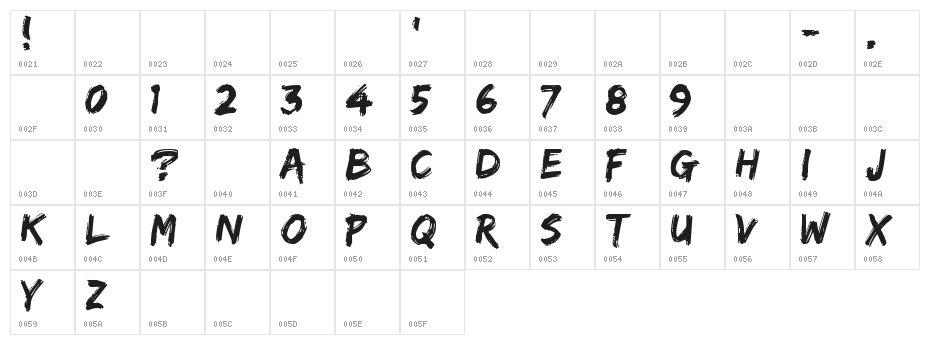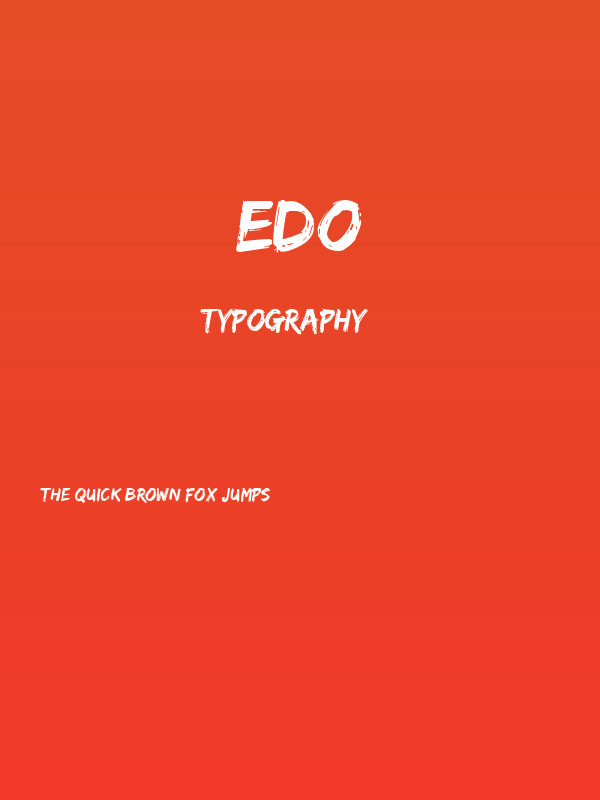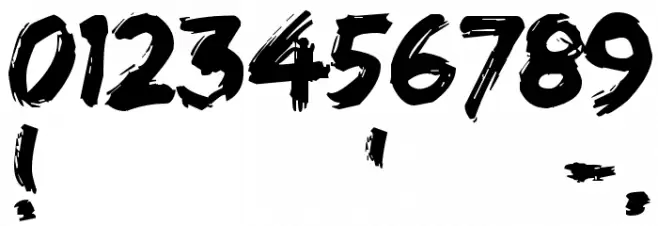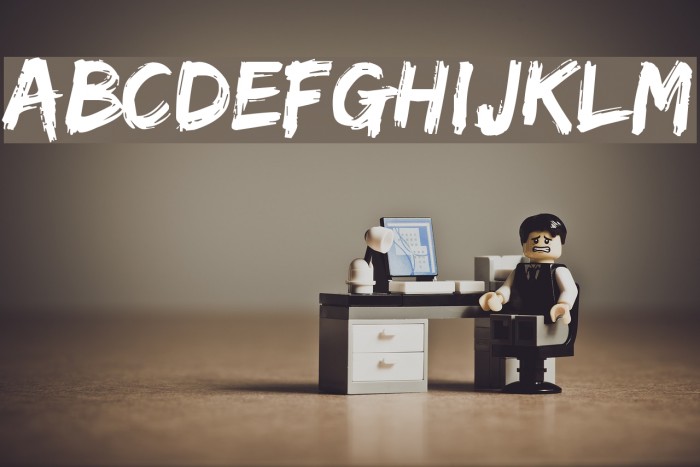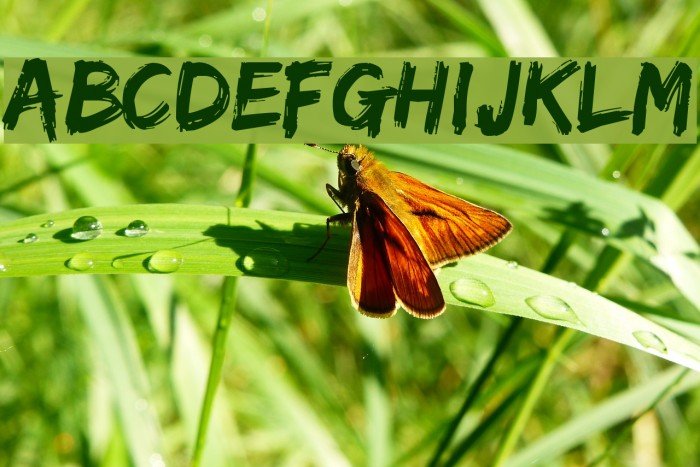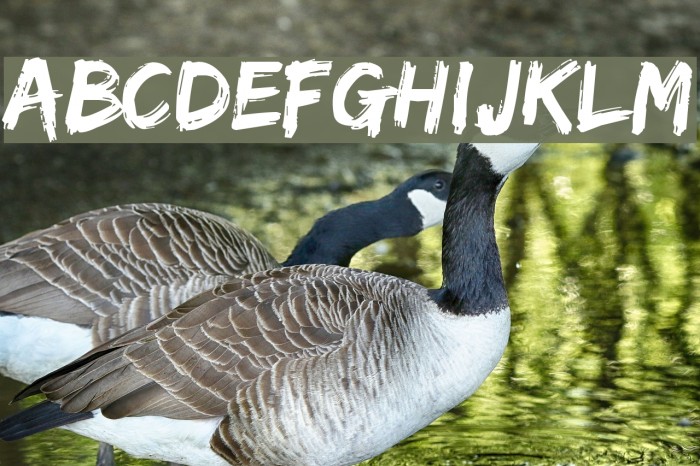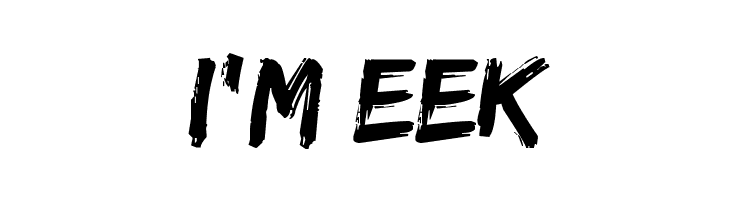
Edo Font
Edo Description
This font features a bold, energetic brush style that conveys a sense of movement and dynamism. The strokes are thick and uneven, giving it a hand-painted appearance that is both artistic and expressive. The characters are slightly slanted, adding to the sense of motion and urgency. The rough edges and irregularities in the strokes contribute to a raw, organic feel, making it ideal for projects that require a touch of creativity and spontaneity. The font maintains good legibility despite its artistic flair, making it suitable for a variety of design applications.
| Overall Style | Modern, Artistic |
| Proposed Projects | Ideal for posters, album covers, branding, and any creative projects needing a bold, artistic touch. |